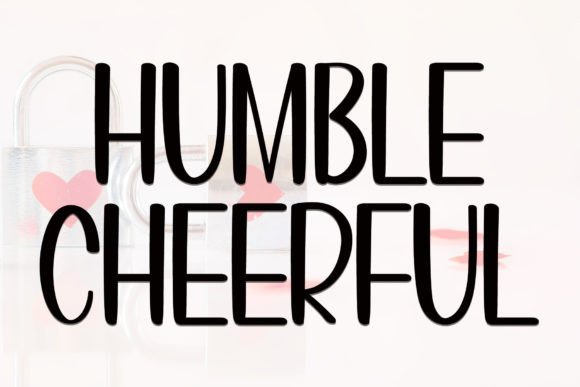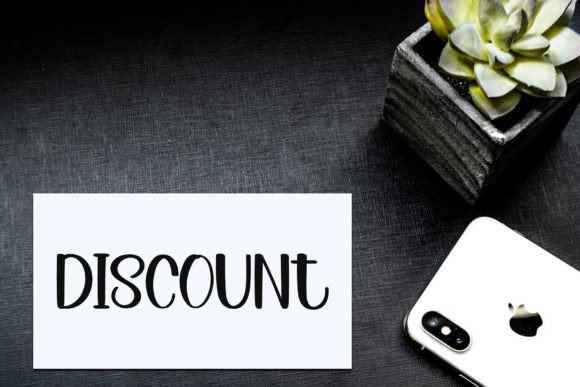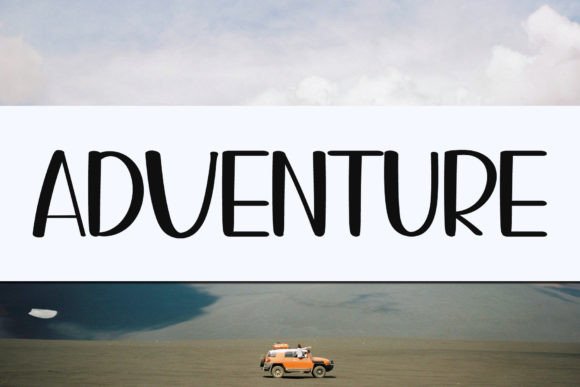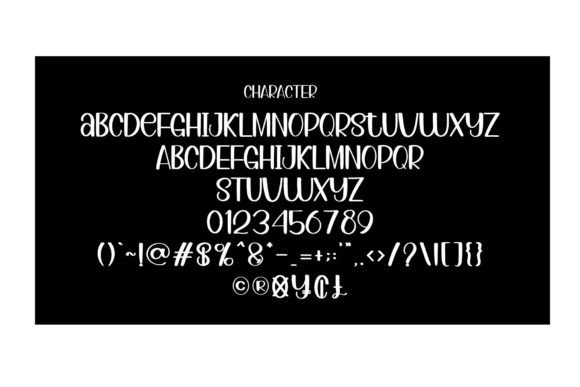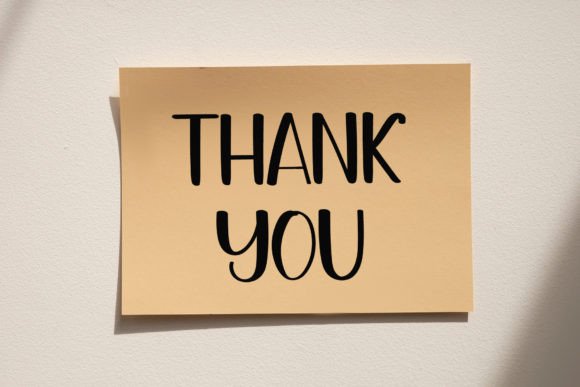
The Perfect Font for Your Creative Masterpiece
Have you ever sat at your desk, staring at a blank canvas, waiting for inspiration to strike? The cursor blinks, and your mind goes blank. But then, suddenly, a spark of creativity ignites, and you know exactly what you want to create. It’s that feeling that drives us as designers, and it’s what makes the Humble Cheerful Font so valuable.
As a beautiful and refined handwritten font, Humble Cheerful is perfect for logos, branding, invitations, stationery, wedding designs, social media posts, and much more! Its classy and modern style makes it a versatile choice for any project. Whether you’re a seasoned designer or just starting out, Humble Cheerful Font is a must-have tool in your creative arsenal.
With its effortless charm and sophistication, Humble Cheerful Font is sure to elevate your designs and leave a lasting impression on your audience.
Humble Cheerful Font Key Features
- Font Family: Humble Cheerful Font is a sans-serif font family designed to evoke a sense of approachability and friendliness.
- Unique Characteristics: Humble Cheerful Font features a distinctive rounded edge design, subtle curves, and a friendly, approachable tone, setting it apart from other sans-serif fonts.
Humble Cheerful Font Review
Overall, I think the Humble Cheerful Font is a lovely addition to any design project. ✨ It’s easy to read, and the subtle rounded edges give it a friendly feel. I appreciate how versatile it is – it works well for both headings and body text. The font’s playful nature makes it perfect for projects that need a bit of whimsy.
The font’s OpenType features also make it easy to customize and add a personal touch to your design. I particularly love the ligatures and swashes that can be used to create a sense of flow and continuity.
- Easy to read
- Playful and friendly feel
- Subtle rounded edges
- OpenType features for customization
- Works well for headings and body text
- May not be suitable for formal or serious projects
- Lack of bold weights may limit its use in certain contexts
- Not ideal for small text sizes
Overall, I think the Humble Cheerful Font is a great choice for projects that need a bit of personality. While it may not be the best fit for every project, it’s a solid addition to any designer’s toolkit.
Getting the Most Out of Humble Cheerful Font
To get the most out of Humble Cheerful Font, consider the following tips:
- Use it for titles and headings to add a touch of whimsy.
- Pair it with a bold font for a contrasting effect.
Humble Cheerful Font is perfect for:
- Children’s party materials and decorations.